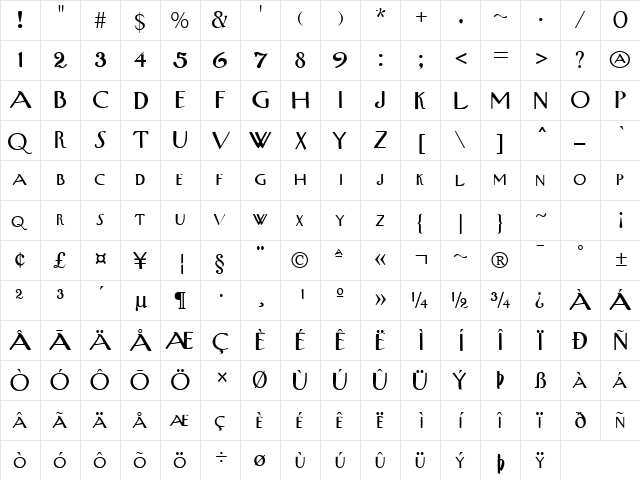
QTWestEnd Regular
Design Context for QTWestEnd Typeface
QTWestEnd offers clean, dependable letterforms without strong stylistic allegiance, making it a practical choice for designers who need flexibility.
Pro Tip: Pair QTWestEnd with a font of contrasting weight or personality to build a more expressive typographic hierarchy.